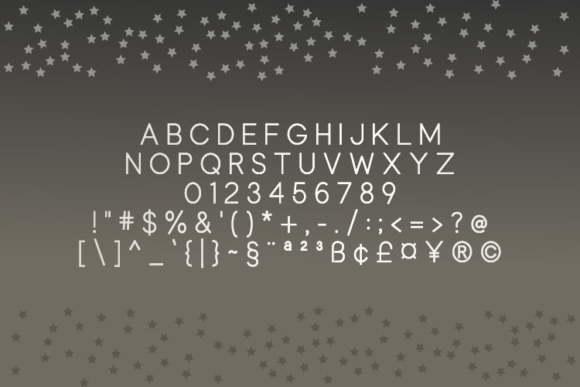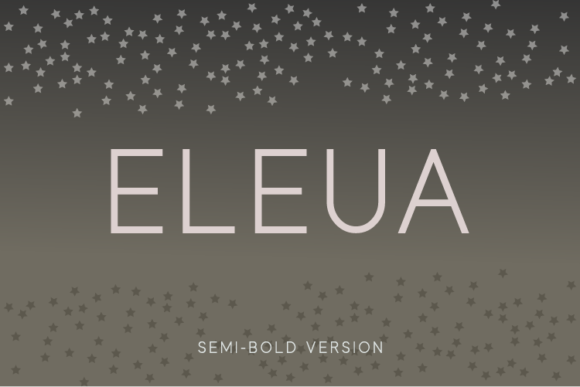
Introducing Eleua Semi-Bold Font: Elevate Your Designs with a Clean and Casual Sans Serif
Are you on the hunt for a font that exudes simplicity, elegance, and versatility? Look no further than the Eleua Semi-Bold Font, a stunning sans serif typeface that is sure to take your designs to the next level. With its undeniably clean feel and beautiful arrangement of letters, Eleua is the perfect choice for designers and crafters seeking a font that can seamlessly transition between formal and non-formal designs.
What is Eleua Font?
Eleua is a simple and casual sans serif font that boasts a neat and beautiful arrangement of letters. Its clean and elegant design makes it an excellent choice for a wide range of design applications, from branding and advertising to packaging and digital media. With its versatility and wide range of uses, Eleua has quickly become a go-to font for designers seeking a reliable and stylish typeface.
Key Features of Eleua Font
- 10 Weights: Eleua is a comprehensive font family that offers 10 weights, allowing you to choose the perfect weight to suit your design needs. Whether you’re looking for a bold statement or a subtle nuance, Eleua has got you covered.
- Clean and Simple Design: Eleua’s sans serif design ensures that your text is clear and easy to read, making it perfect for body text, headings, and titles.
- Formal and Non-Formal Designs: Eleua’s elegant and versatile design makes it suitable for both formal and non-formal designs, allowing you to use it across a wide range of applications.
- Beautiful Arrangement of Letters: Eleua’s letters are carefully crafted to create a beautiful and harmonious arrangement, making your text stand out and grab attention.
Benefits of Using Eleua Semi-Bold Font
So, why choose Eleua Semi-Bold Font for your designs? Here are just a few benefits of using this exceptional font:
- Improved Readability: Eleua’s clean and simple design ensures that your text is easy to read, making it perfect for body text and other applications where readability is crucial.
- Enhanced Aesthetics: Eleua’s beautiful arrangement of letters and elegant design make it a stunning addition to any design, elevating your text and giving it a professional finish.
- Versatility: With 10 weights to choose from, Eleua offers unparalleled versatility, allowing you to use it across a wide range of applications and design styles.
- Time-Saving: With Eleua, you can achieve professional-looking results in a fraction of the time, making it an excellent choice for designers and crafters working under tight deadlines.
Who Can Benefit from Eleua Semi-Bold Font?
Eleua Semi-Bold Font is an excellent choice for a wide range of designers and crafters, including:
- Graphic Designers: Eleua is perfect for graphic designers seeking a clean and elegant font for branding, advertising, and other applications.
- Digital Designers: Eleua’s versatility and clean design make it an excellent choice for digital designers working on websites, mobile apps, and other digital projects.
- Crafters: Eleua’s beautiful arrangement of letters and elegant design make it a stunning addition to any craft project, from papercraft to embroidery.
- Marketing and Advertising Professionals: Eleua’s professional finish and versatility make it an excellent choice for marketing and advertising professionals seeking a reliable and stylish font.
In conclusion, Eleua Semi-Bold Font is an exceptional sans serif typeface that offers a unique combination of simplicity, elegance, and versatility. With its clean and beautiful arrangement of letters, 10 weights, and suitability for both formal and non-formal designs, Eleua is the perfect choice for designers and crafters seeking a reliable and stylish font. Whether you’re working on a graphic design project, digital project, or craft project, Eleua Semi-Bold Font is sure to elevate your designs and give them a professional finish.